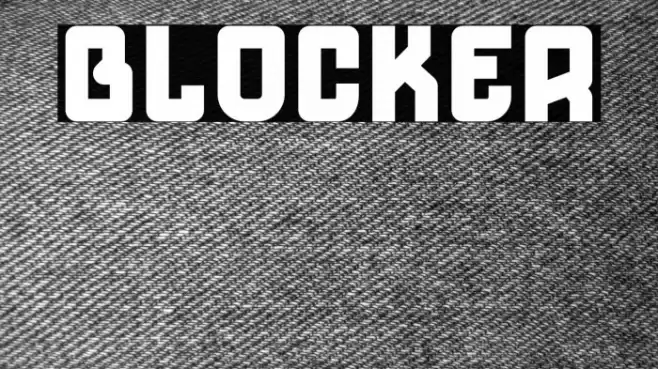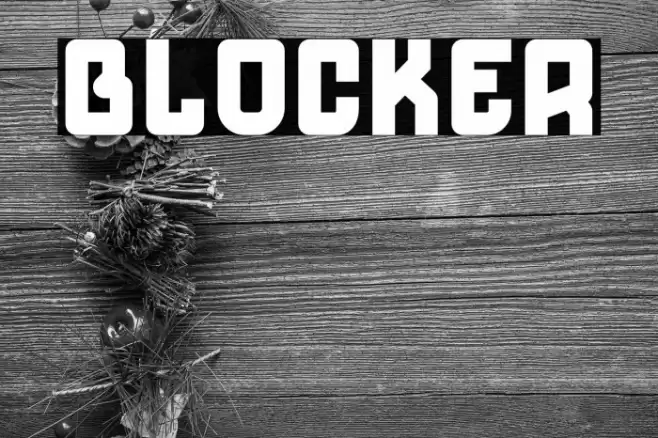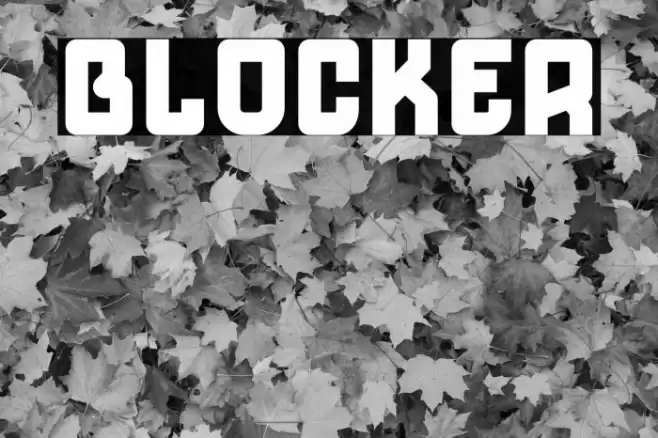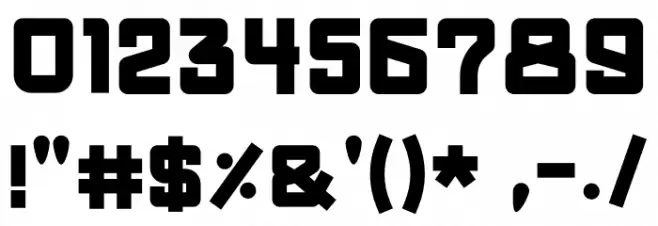
Blocker Font
Blocker Description
This font features a bold and robust design with a strong geometric structure. The characters are uniformly thick, giving it a powerful and commanding presence. The uppercase letters are particularly striking, with sharp angles and a block-like appearance that conveys strength and stability. The numbers and special characters maintain this bold aesthetic, ensuring consistency across all glyphs. The overall style is modern and industrial, making it suitable for projects that require a strong visual impact.
A bold, geometric font with a strong, industrial aesthetic from Regular fonts.
- Proposed Projects: Ideal for branding, posters, headlines, and any design requiring a bold statement.
- Overall Style: Modern, Industrial